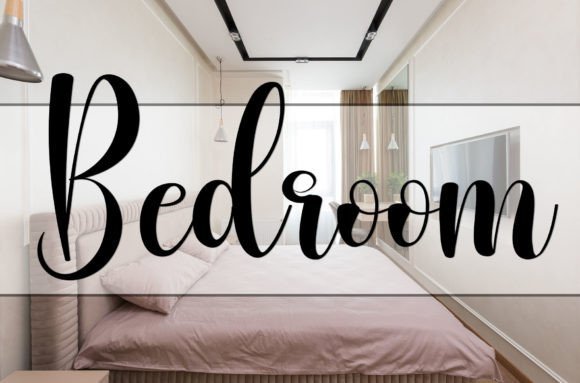
Discovering the Perfect Font for a Warm Welcome
Have you ever found yourself scribbling down a love letter or a heartfelt message to a dear friend, only to realize that the words just don’t seem to do justice to your emotions? For me, it’s often the handwritten fonts that evoke the feeling of a warm hug or a whispered secret. And that’s exactly why I’m excited to share with you the charm of Bedroom Font, a sweet and friendly handwritten font that’s sure to add a personal touch to your designs.
Designed to evoke the feeling of a cozy bedroom, this font is perfect for writing wedding invitations, cards, or any other design that needs a fun and playful twist. Whether you’re a professional designer or a DIY enthusiast, Bedroom Font is a valuable addition to your toolkit. Its fresh and clean design makes it an ideal choice for creating unique and memorable designs that will leave a lasting impression.
Key Features of Bedroom Font
- Font Style: Bedroom Font is a script font with a unique, handwritten feel, perfect for adding a touch of elegance and sophistication to your designs.
- Character Set: Includes a wide range of characters, including uppercase and lowercase letters, numbers, and punctuation marks, making it suitable for a variety of applications.
- Unique Characteristics: Features a distinctive, flowing script style with connected letters and subtle flourishes, adding a touch of personality and whimsy to your designs.
Designer Review: Bedroom Font
Bedroom Font is a script font that’s perfect for creating a cozy and intimate atmosphere. Here’s my honest take on it:
- Its flowing lines and swashes create a sense of elegance and sophistication.
- The font’s irregularities add a touch of handmade charm, making it perfect for designs that require a personal touch.
- It’s highly legible, even at smaller font sizes, making it suitable for a wide range of applications.
- The font’s complexity can make it difficult to customize and edit.
- It may not be the best choice for designs that require a more modern or bold aesthetic.
- The font’s irregularities can sometimes make it difficult to read, particularly for those with vision impairments.
Bedroom Font is a beautiful script font that’s perfect for designs that require a touch of warmth and elegance. While it has its limitations, it’s a great choice for those looking to create a cozy and intimate atmosphere. With careful use, it can add a unique touch to any design project.
Tips for Getting the Most Out of “Bedroom Font”
For best results, use “Bedroom Font” in combination with other design elements that evoke a cozy and relaxing atmosphere, such as pastel colors and soft textures.
Experiment with different font sizes and styles to create visual interest and hierarchy in your design.
“Bedroom Font” is ideal for:
- Designing bedroom decor and furniture labels.
- Creating invitations and stationery for baby showers and weddings.
- Developing branding and marketing materials for home decor and wellness businesses.